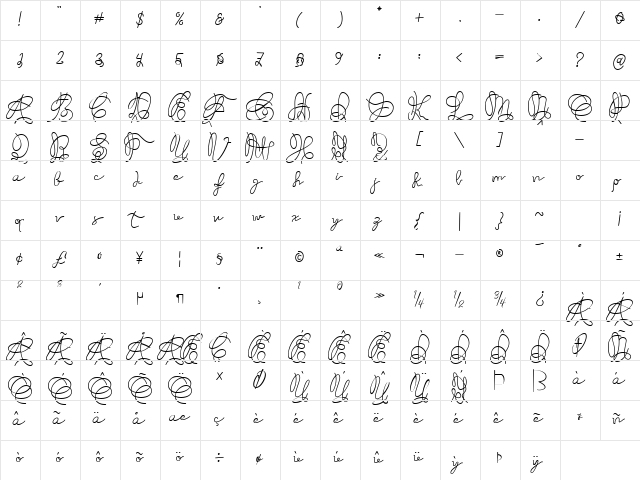
Just Thought Regular Font Preview
Just Thought Regular
Just Thought Regular Font Details
| Designer | Bright Rhtym Studio 2019 |
Design Context for Just Thought Typeface
Just Thought is a composed and adaptable typeface that performs quietly and consistently across a wide range of design contexts.